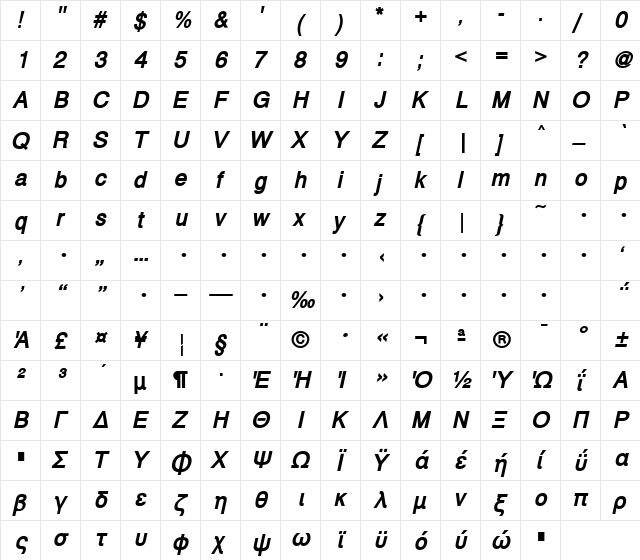
SwissGk Bold Italic Font Preview
Design Context for SwissGk Typeface
SwissGk offers clean, dependable letterforms without strong stylistic allegiance, making it a practical choice for designers who need flexibility. Its italic angle brings a sense of urgency and motion to the letterforms. The heavy weight commands attention and anchors typographic hierarchies.
Pro Tip: Try SwissGk for annotation and caption copy alongside an upright companion — the contrast in angle creates a dynamic but ordered typographic system.